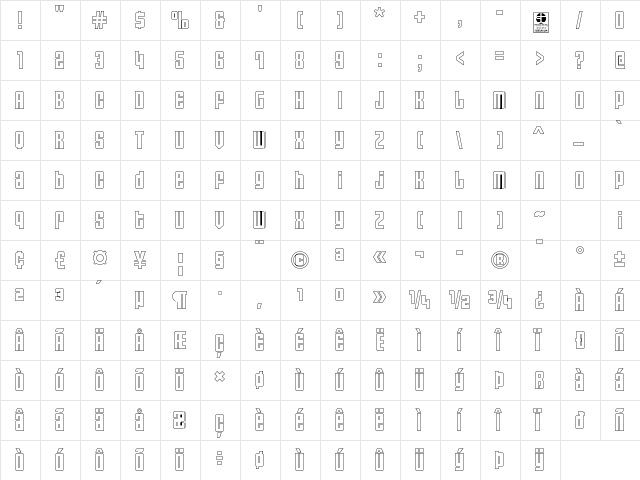
Asectica Outline Demo Regular Font Preview
Asectica Outline Demo Regular
Asectica Outline Demo Regular Font Details
Design Context for Asectica Outline Demo Typeface
Asectica Outline Demo is built around its visual character rather than neutral utility — its distinctive forms are designed to make an impression at display sizes.
Font Pairing: Pair with a clean neutral sans-serif for body copy to let Asectica Outline Demo's character lead without overwhelming the composition.
Pro Tip: Use Asectica Outline Demo exclusively at display sizes — it was designed to be seen, not read at length. Let a neutral companion handle body copy.